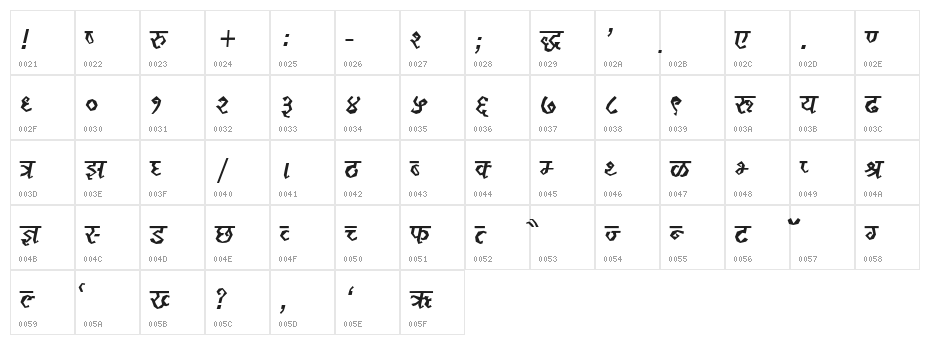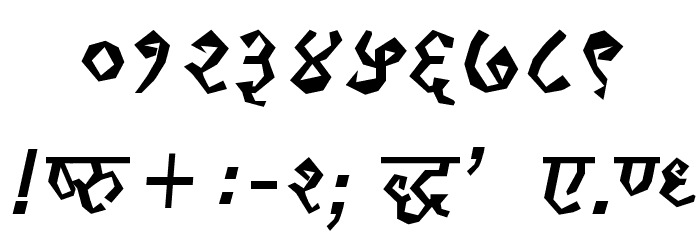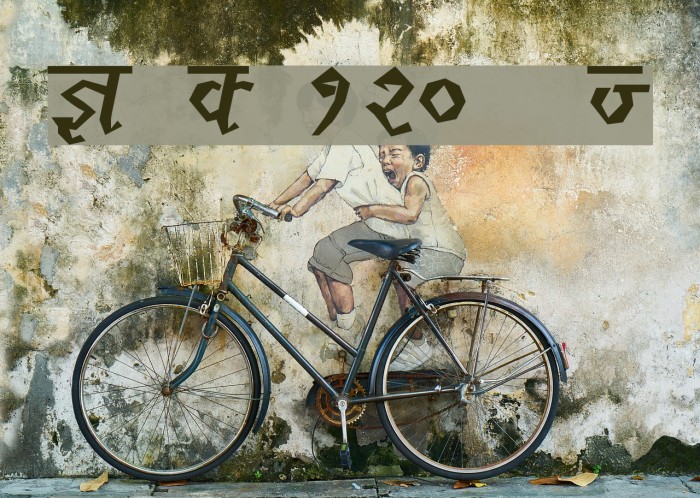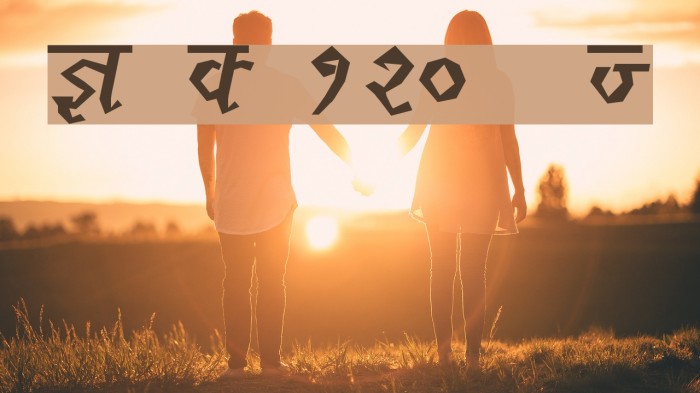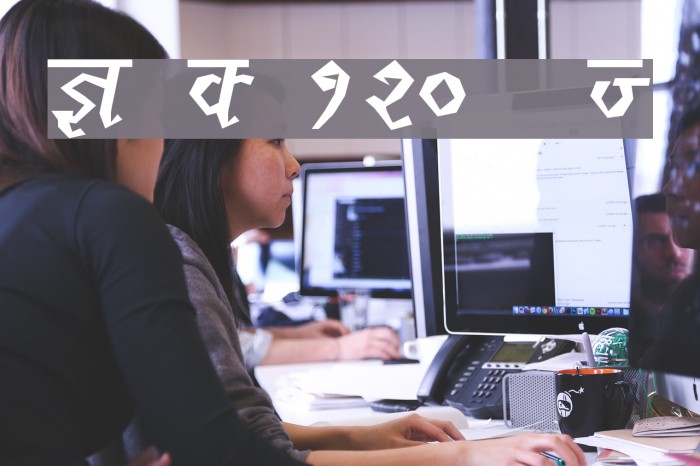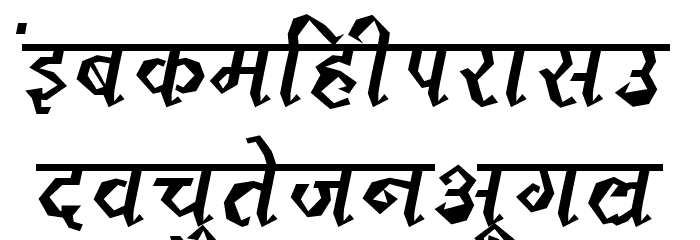
Kruti Dev 120 Thin Font
Kruti Dev 120 Thin Description
This font is a traditional Devanagari script with a distinctive angular and geometric style. It features sharp edges and a bold presence, making it highly legible and striking. The characters are well-defined with a consistent stroke width, giving it a uniform appearance. The font maintains a classic look while incorporating modern elements, making it versatile for various uses. Its unique design is suitable for both digital and print media, providing a strong visual impact. The spacing between characters is balanced, ensuring readability without compromising on style.
| Use Case | Headlines, Logos, Signage |
| Proposed Projects | Ideal for cultural publications, educational materials, signage, and branding projects that require a traditional yet modern touch. |